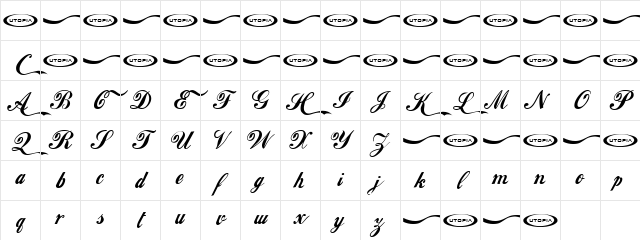
Ultra Vertex Regular
Foundry: Ultra Vertex
Design Context for Ultra Vertex
Ultra Vertex is a composed and adaptable typeface that performs quietly and consistently across a wide range of design contexts.
Pro Tip: Use Ultra Vertex in both headline and body roles to test its range before committing to a single application.